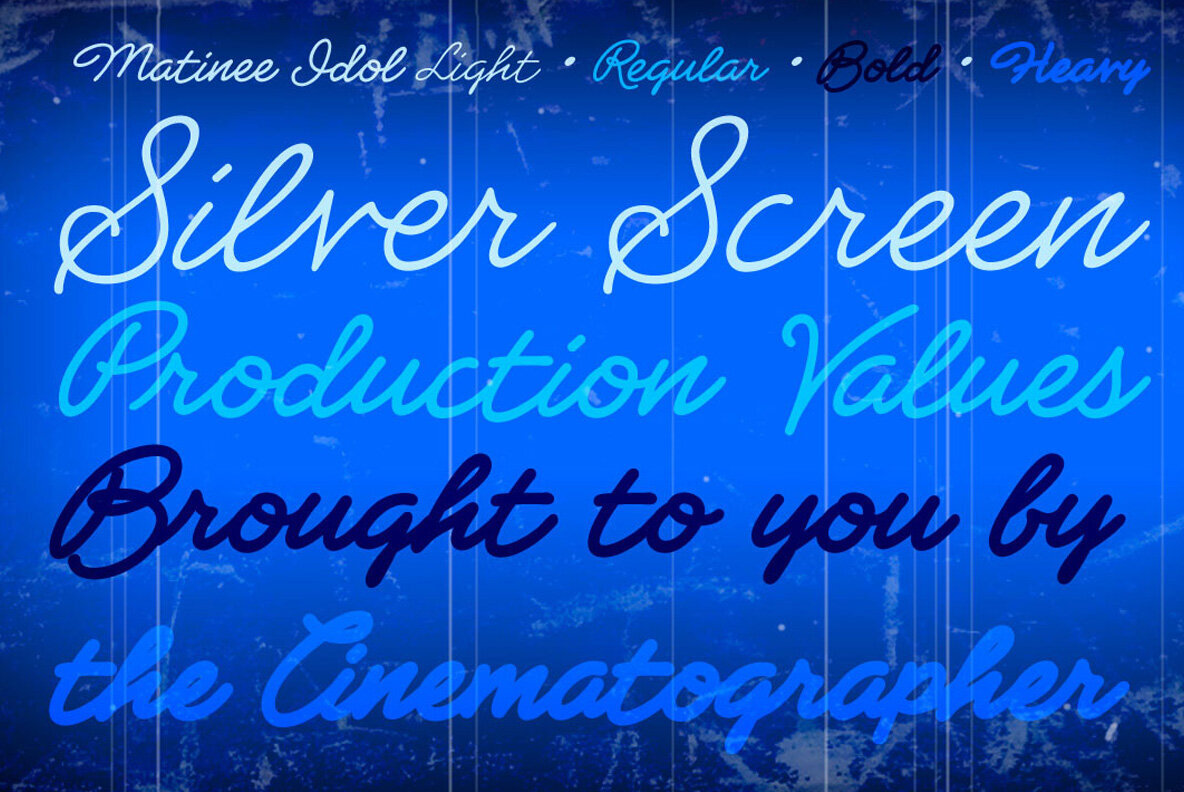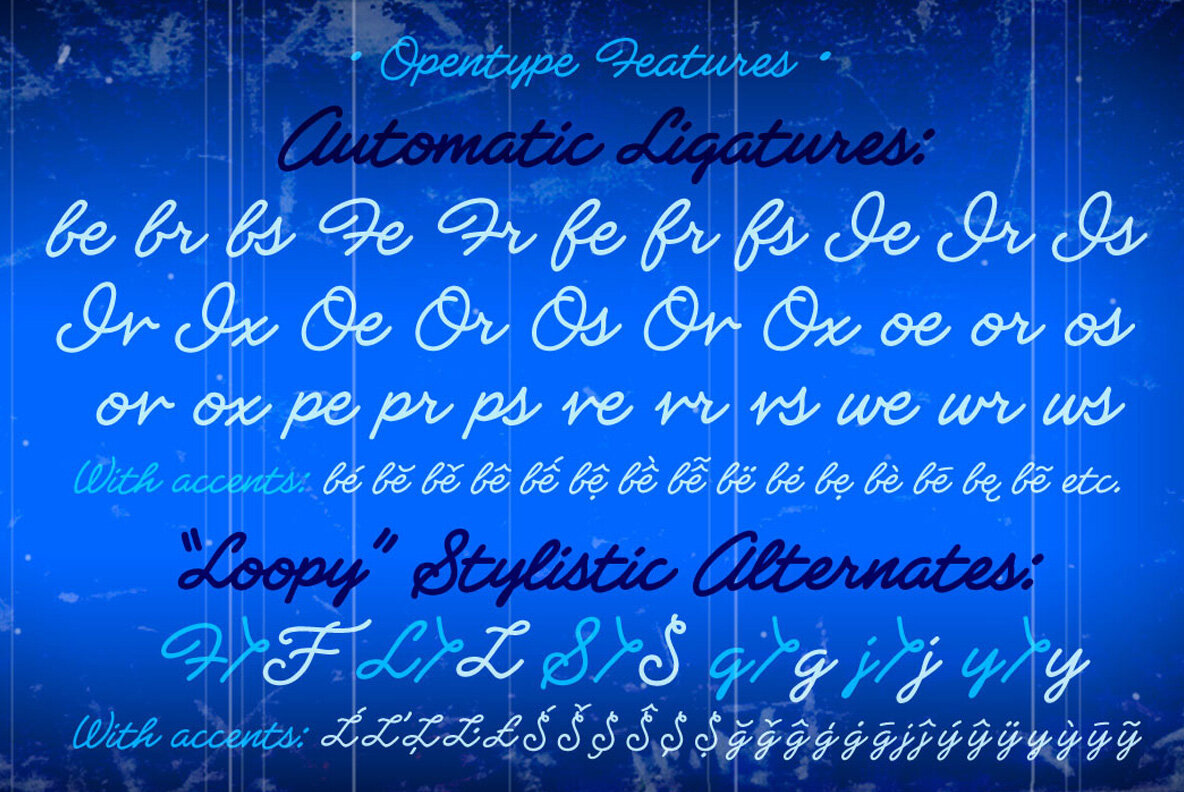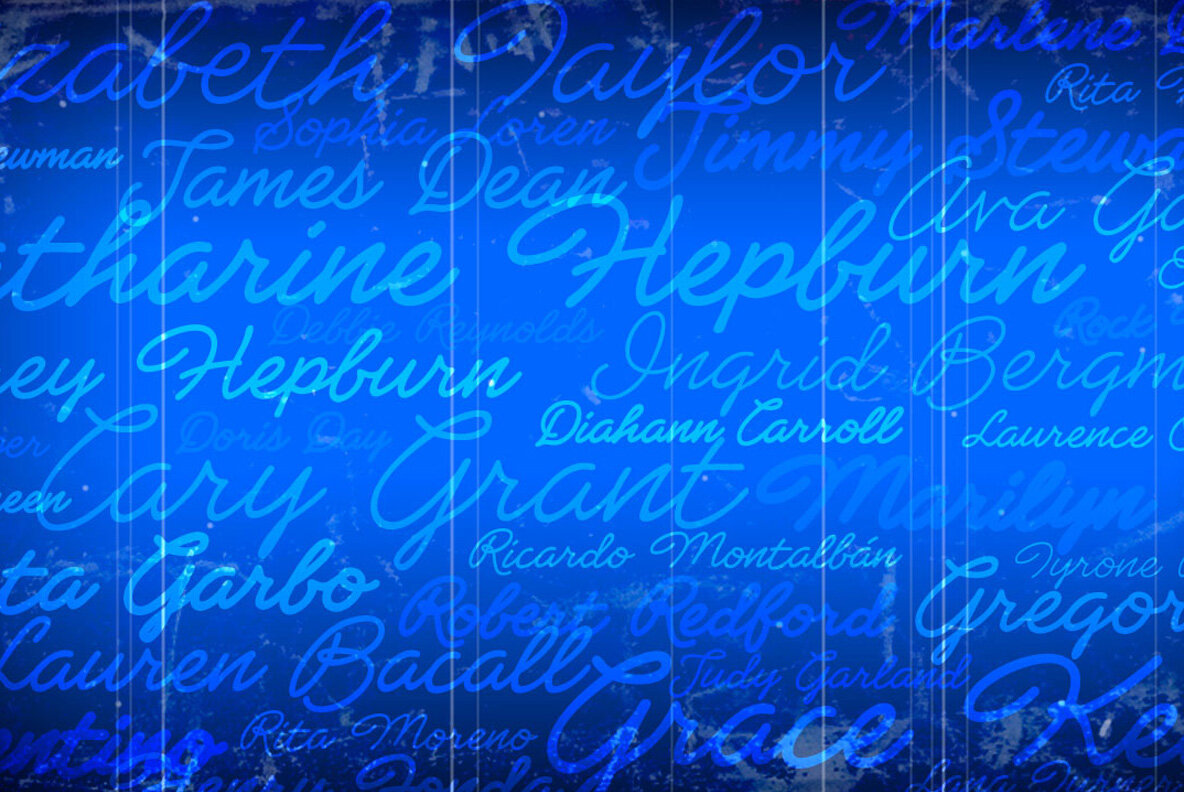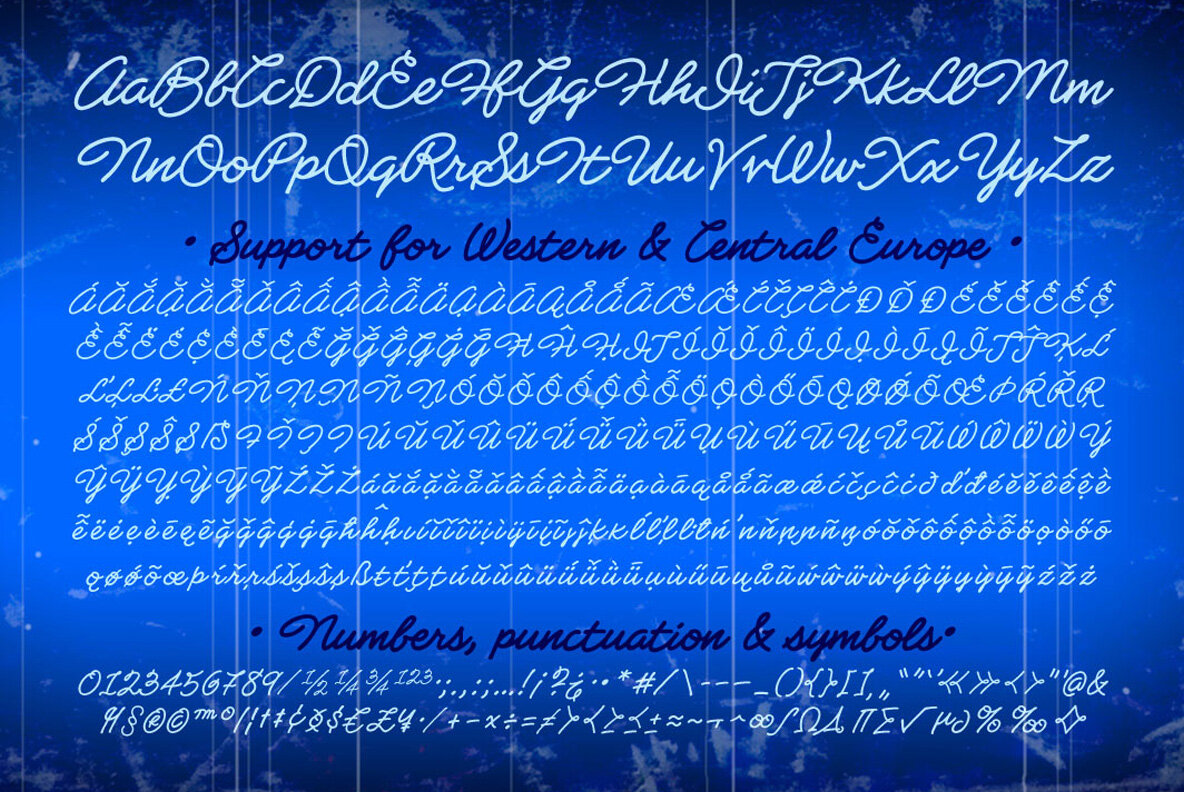
Matinee Idol Font
Now showing at your local picture house is a classic romantic comedy coupling featuring Matinee Idol and Matinee Idol Bold; famous faces you've come to know and love in features like Warners' "Hush" and Columbia's "The Evil That Men Do." Stop by our lobby and check these fonts out -- the popcorn and soda are on us!* Oh, and please remember to refrain from smoking and talking during the show! Remastered Matinee Idol adds new Light & Heavy weights, Opentype connecting Ligatures & Stylistic Alternates, improved spacing & kerning, and Western & Central European language support. *While supplies last.